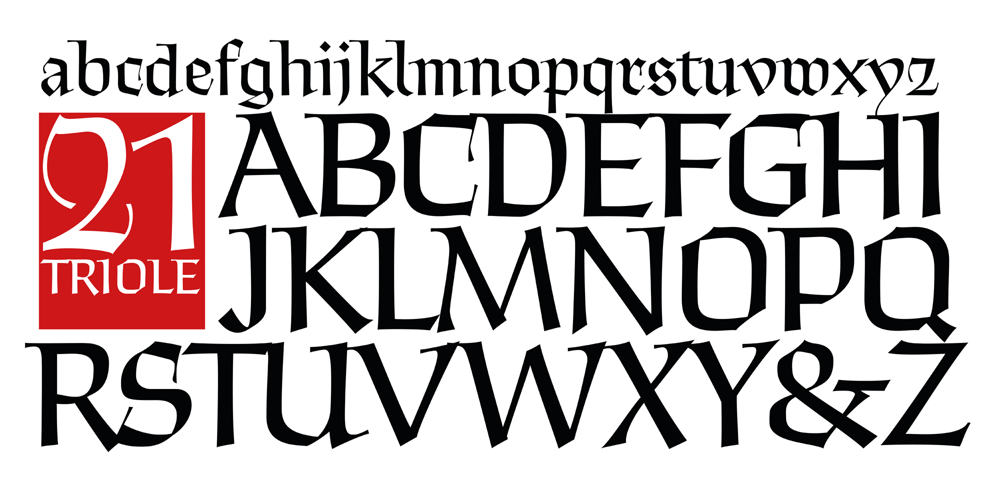
Triole 21 Font Family was designed by Bertram Kaiser and published by KaiserType. Triole 21 contains 1 styles and family package options. “Triole 21” is the name of a gothic script font designed by Bertram Kaiser. The forms of this so called “Rotunda” script are based on the manuscripts of italian calligraphers of the late 14th century. Inspiration for this project also comes from the calligrapher Lisa Beck. The glyphs were first written with a broad-nib and then digitized. The Open-Type font is equiped with multilingual (Latin-based) alternates, ligatures and oldstyle figures for various typographical purposes. It can be used for headlines and also stays legible in smaller textsizes for longer textpassages.